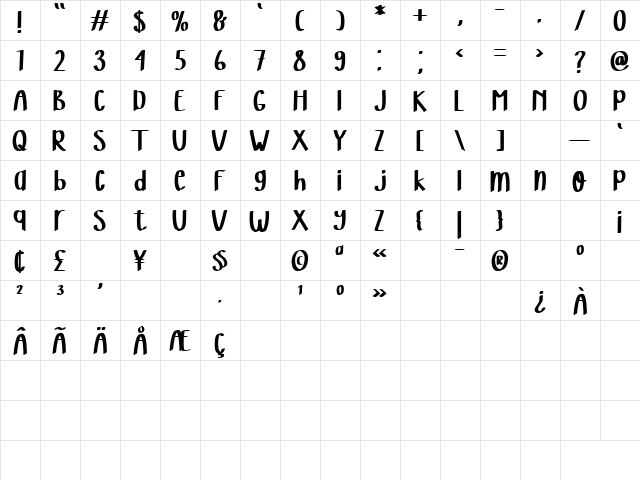
Butter Spoky Regular
| Designer | Prio Nurokhim Aji |
Design Context for Butter Spoky Typeface
Butter Spoky is a composed and adaptable typeface that performs quietly and consistently across a wide range of design contexts.